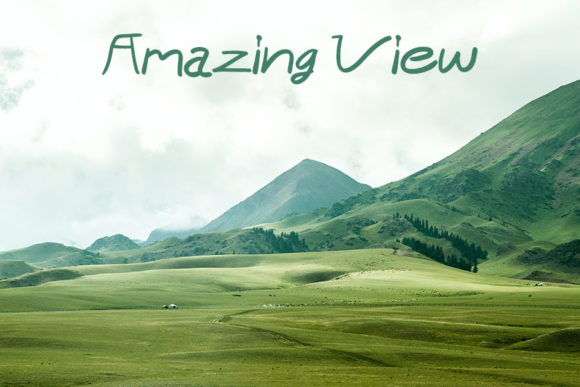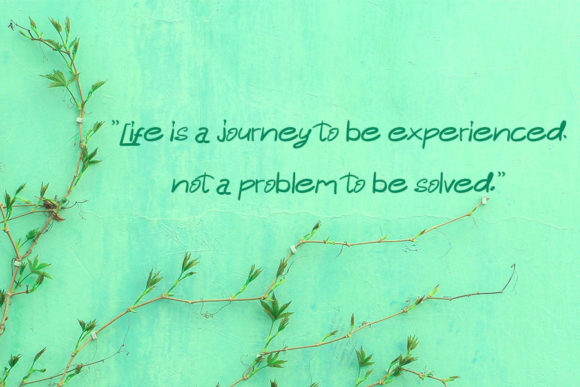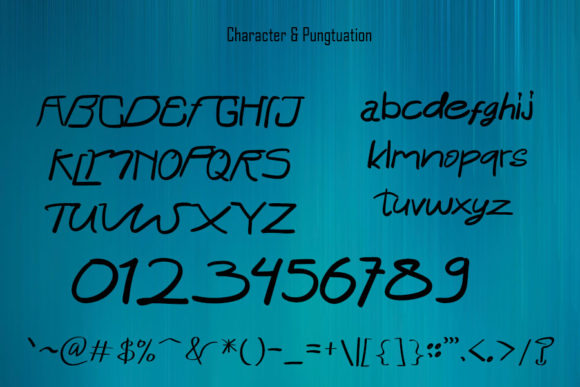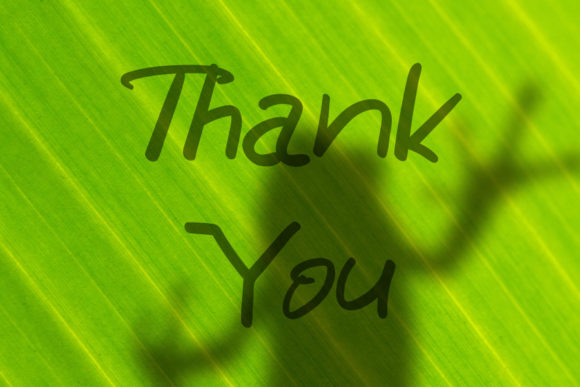
Introduction to Simz Nextime Font
Have you ever been working on a creative project and just can’t seem to find the perfect font to bring it all together? You’re not alone! As a designer, I know how frustrating it can be to scroll through endless options, only to find that they just don’t quite fit the vibe of your design. But what if I told you that I’ve recently discovered a game-changing font that’s about to take your projects to the next level?
Enter the Simz Nextime Font, a cool and unique handwritten font that’s perfect for crafting, digital designing, presentations, or even greeting card making. With its high quality design and transparent background, this font is a valuable resource for any designer looking to add a touch of personality to their work.
Key Features of Simz Nextime Font
- High-quality font design ideal for creative projects and various design resources.
- Includes a transparent background, allowing for seamless integration with any design.
- Features a unique, modern design with clean lines and minimalist aesthetic, making it suitable for a wide range of applications.
Honest Review: Simz Nextime Font
I recently came across the Simz Nextime Font while searching for a design resource for a creative project. I was immediately drawn to its modern and sleek aesthetic, making it perfect for a high-quality design.
One of the things that works well with this font is its versatility. It can be used for a variety of projects, from logos to social media graphics, and even as a body font for articles and blogs. I also appreciate the transparent background, which makes it easy to overlay on top of other design elements.
- ✨ High-quality design
- ✨ Versatile and can be used for various projects
- ✨ Transparent background
Overall, I’m impressed with the Simz Nextime Font and would definitely recommend it for designers who are looking for a modern and sleek font for their next project. Just be aware of the limitations and consider supplementing with other fonts if you need a wider range of options.
Common Use Cases for Simz Nextime Font
The Simz Nextime Font is ideal for a wide range of design projects, including logos, icons, graphics, presentations, reports, and business documents. Its high quality and versatility make it a valuable addition to any design resource.